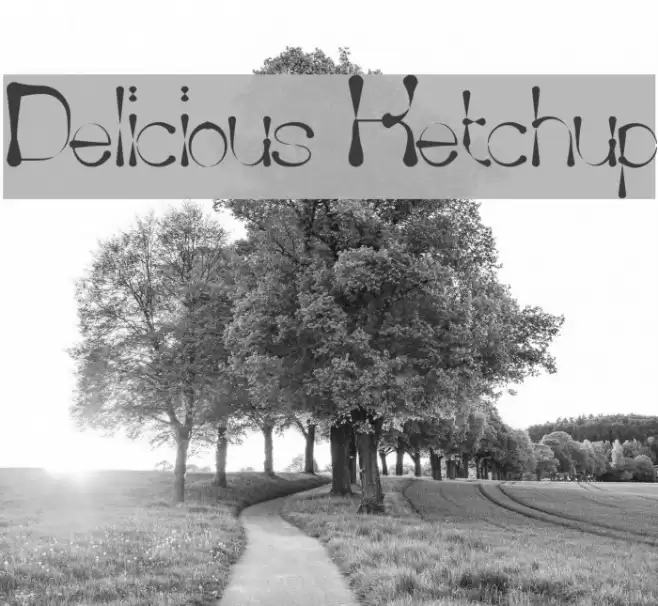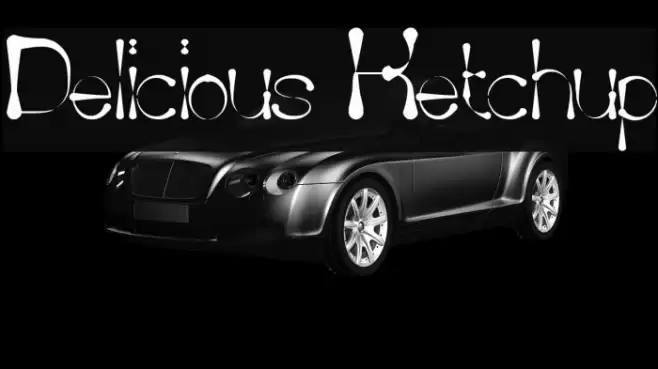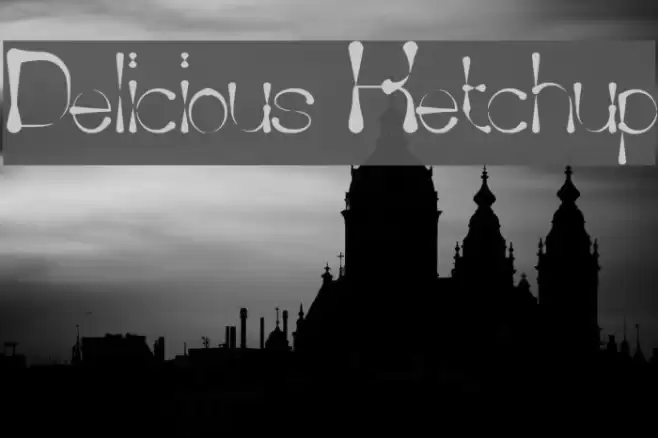
Delicious Ketchup Font
Delicious Ketchup Description
This font features a unique and playful design with a whimsical touch. Each character is crafted with bold, rounded strokes that create a sense of movement and fluidity. The letters have a distinct, organic feel, with varying stroke thicknesses that add to the dynamic appearance. The overall style is both modern and artistic, making it stand out in any design project. The font's playful nature is emphasized by its irregular shapes and curves, which give it a hand-drawn, almost cartoonish quality. This font is perfect for projects that require a fun and engaging visual element.
A playful and whimsical font with bold, rounded strokes and an artistic flair from Uncategorized fonts.
- Proposed Projects: Ideal for children's books, playful branding, creative posters, and artistic invitations.
- Overall Style: Modern, Artistic
- Use Case: Logos, Posters, Creative Projects